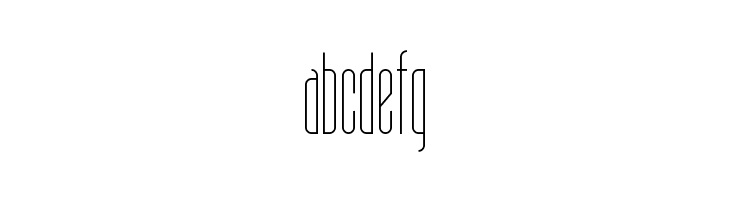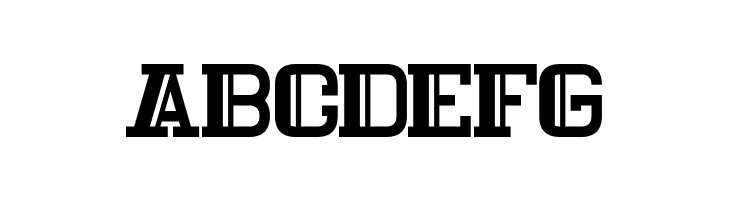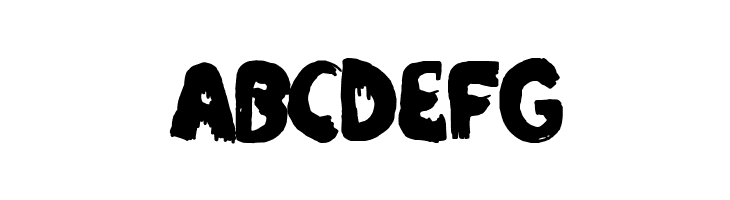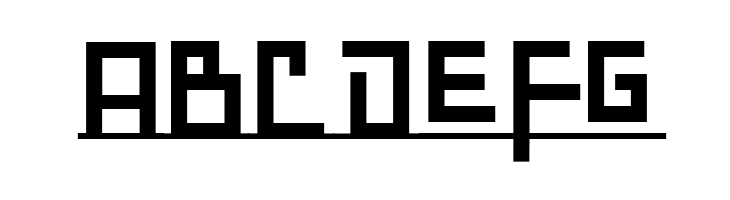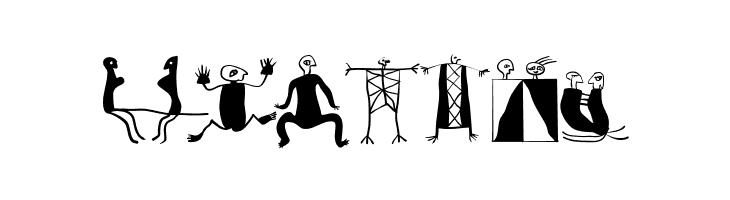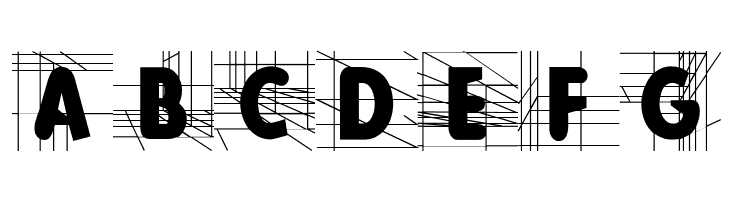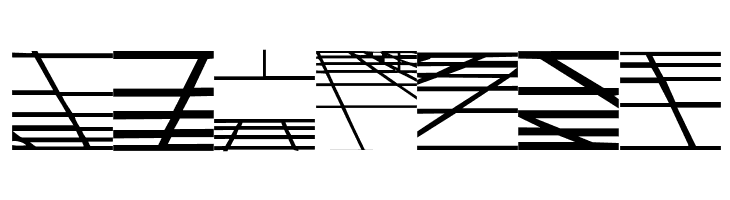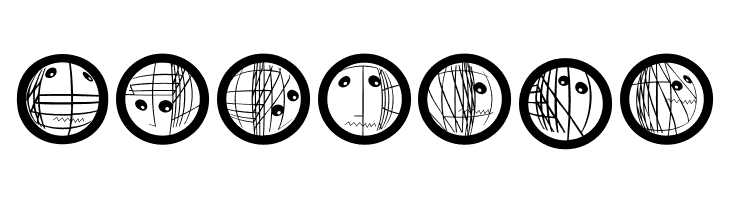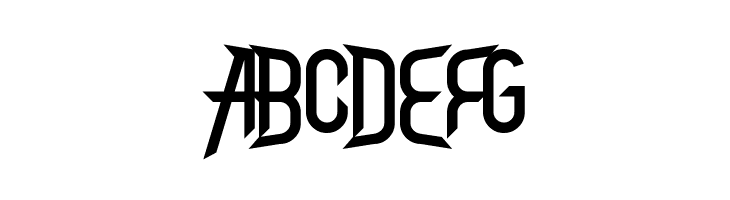
A bold, geometric font with sharp angles and a modern aesthetic.
Abstract, grid-based display font with experimental, chaotic forms.
A bold, geometric font with a unique grid overlay, offering a modern and structured aesthetic.
A playful, pictogram-style display font inspired by prehistoric and avant-garde art.
An artistic and decorative font with intricate illustrations in each character.
Whimsical font with human figures and symbolic head icons.
A bold, geometric font with a modern, digital aesthetic.
A decorative font inspired by primitive art and stone carvings, featuring whimsical illustrations.
A bold, hand-painted style font with a raw, energetic appearance.
An ultra-condensed, elongated font with a modern, sleek aesthetic.
Abstract circular symbols with intricate line patterns.
A modern, ultra-condensed font with elongated, sleek characters.
A bold, geometric, and condensed font with a futuristic style.
A bold, angular, and condensed italic font with a futuristic style.
A bold, futuristic italic font with sharp, angular lines.
A bold, geometric font with a three-dimensional shadow effect.
A bold, geometric font with a shadow effect and italicized style.
A bold, 3D italic font with sharp angles and a dynamic appearance.
A bold, 3D font with angular edges and a futuristic style.
A bold, condensed Gothic-style font with sharp, angular edges.
A bold, condensed, and italicized font with high contrast and dynamic angles.
A bold, angular font with a gothic, medieval flair.
A bold, expanded, and italic font with sharp, angular edges.
A bold, angular, and italicized font with a dynamic and aggressive style.
A bold, angular font with a dynamic slant and geometric shapes.
A bold, gothic-inspired font with sharp, angular edges and dramatic styling.
A playful, vintage-inspired font with medium contrast and whimsical lowercase letters.
A bold, gothic blackletter font with intricate, ornate details.
A bold, flowing script font with smooth, continuous strokes.
A bold, industrial-style font with strong geometric shapes and uniform strokes.
A bold, high-contrast serif font with a classic and authoritative style.
Bold, italicized serif font with a strong and dynamic presence.
A bold, geometric font with sharp angles and a modern, dynamic style.